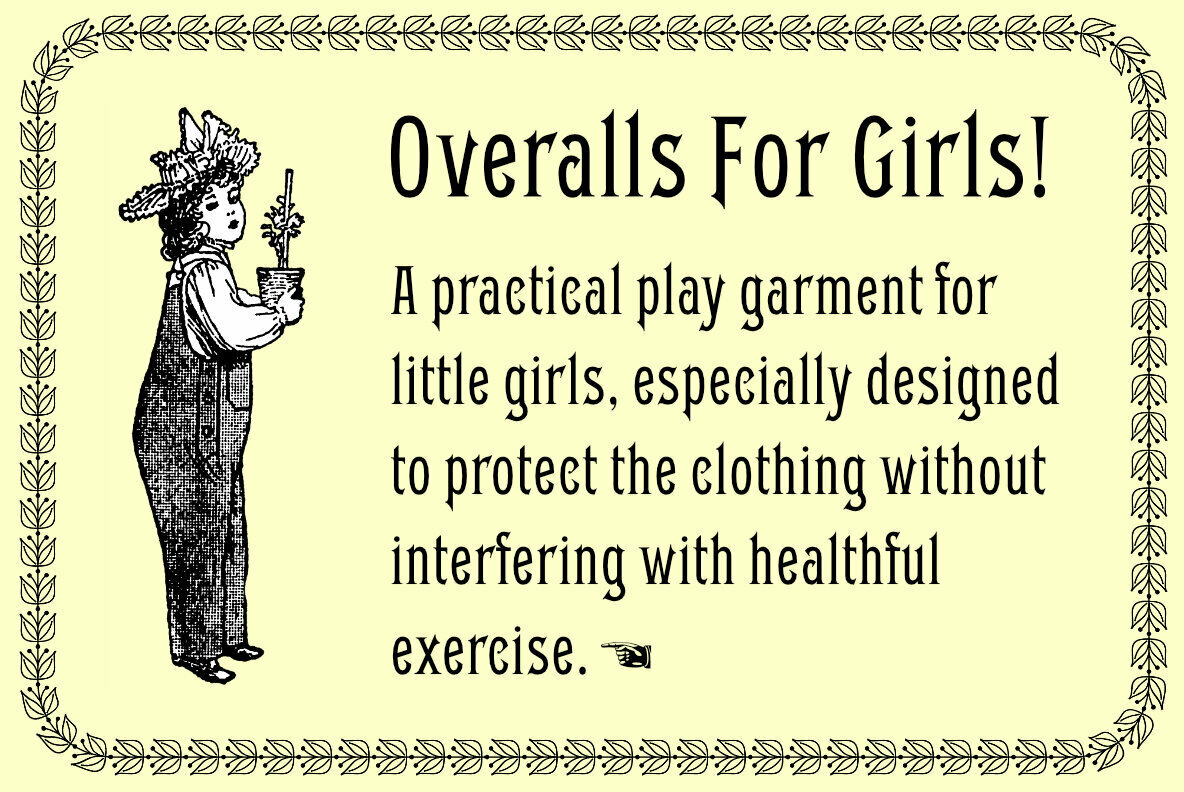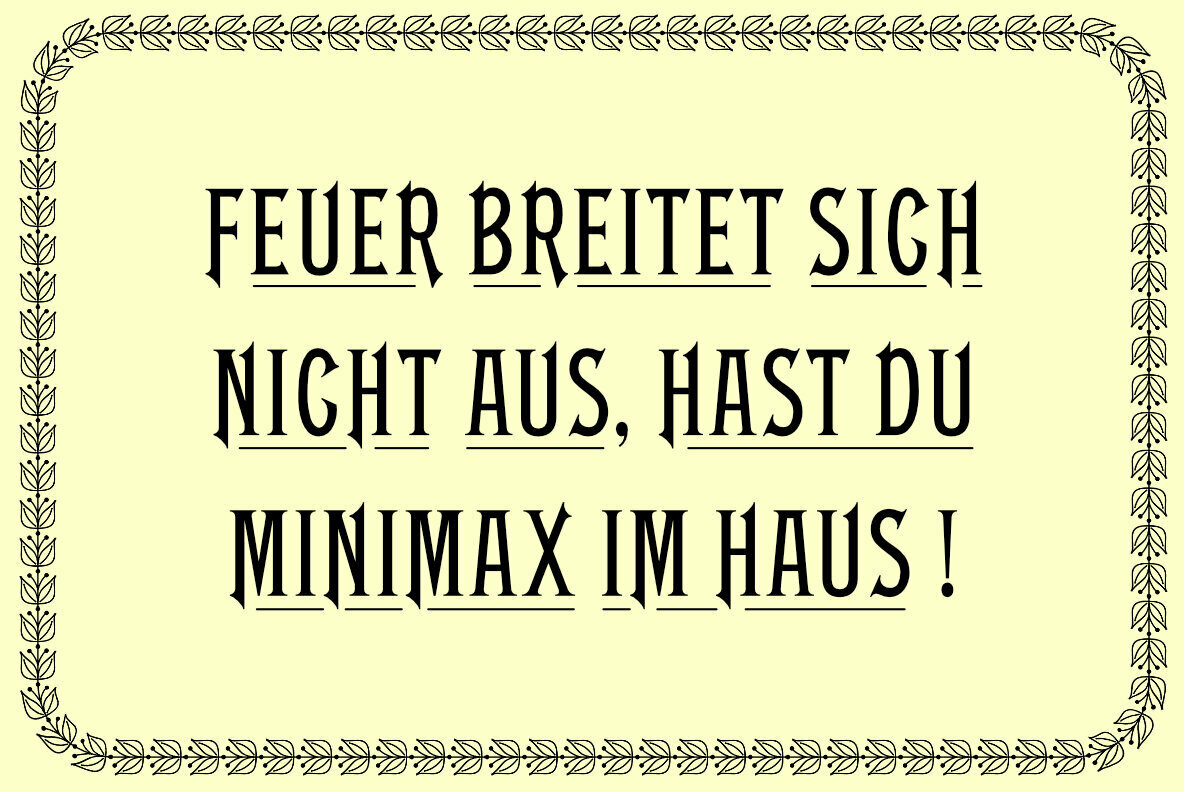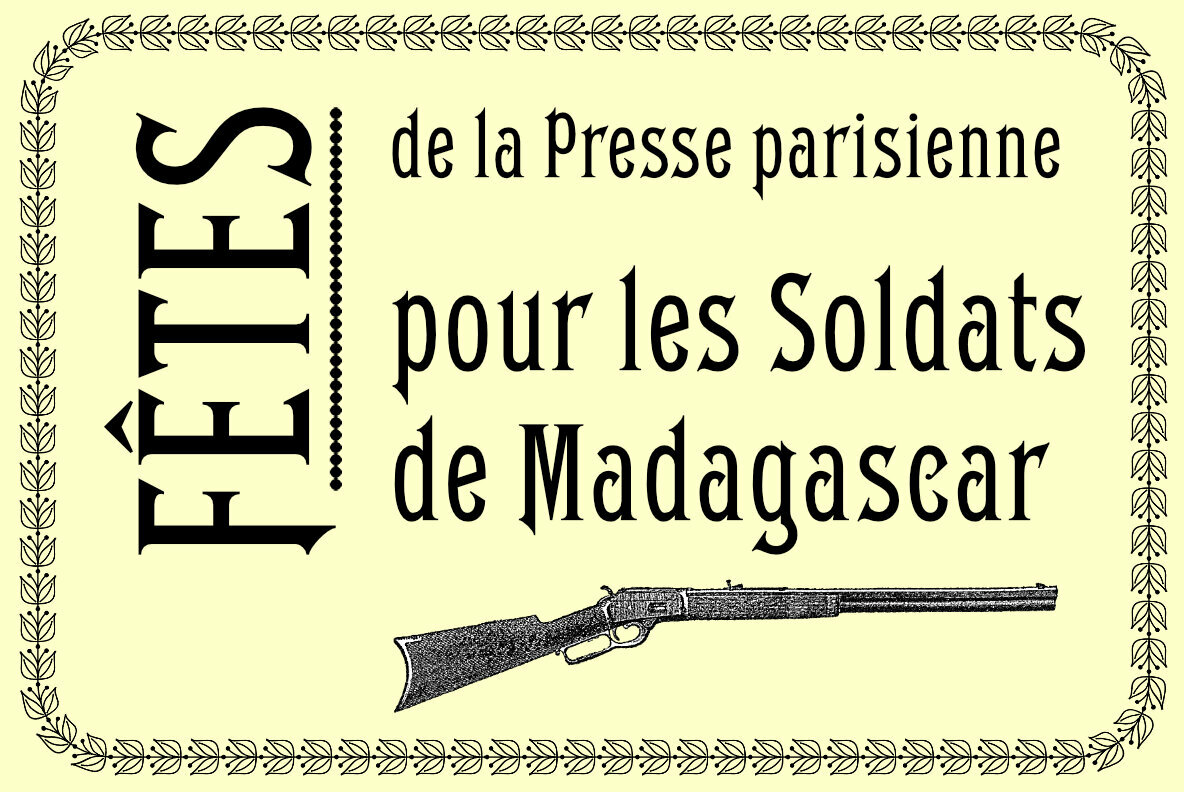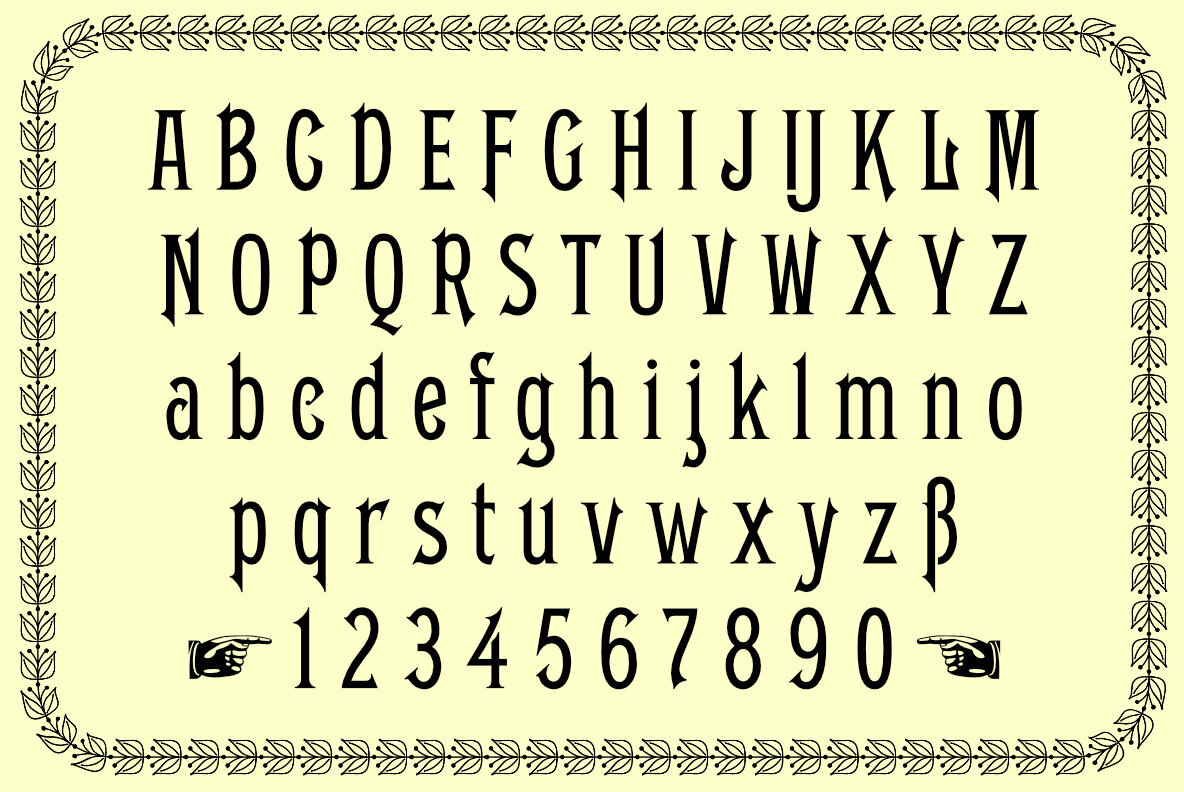
Lenbach Font
Lenbach Regular
Lenbach is a revival which was inspired by a late-19th century German font design. It comes with both Western and Central European characters, as well as Baltic, Romanian and Turkish characters. To get access to all ligatures, it is recommended to activate both Standard and Discretionary Ligatures.